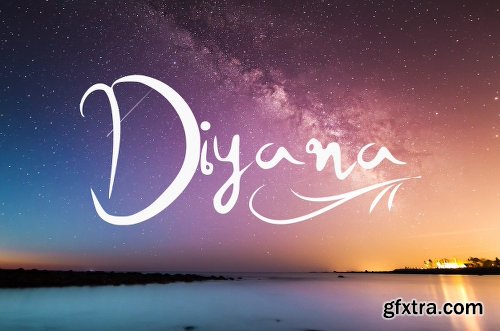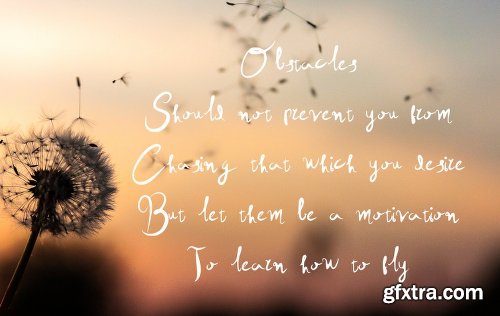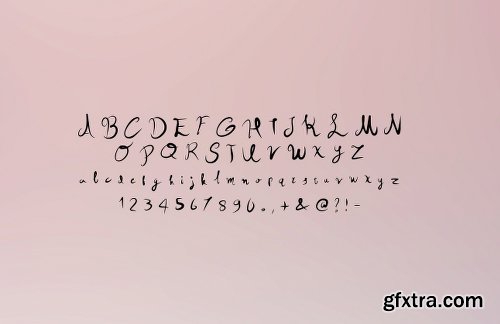
Diyana is a handwritten font. Ideal for logos, handwritten quotes, product packaging, header, poster, merchandise, social media & greeting cards.
Features
Basic Latin A-Z and a-z
Numbers
Symbols